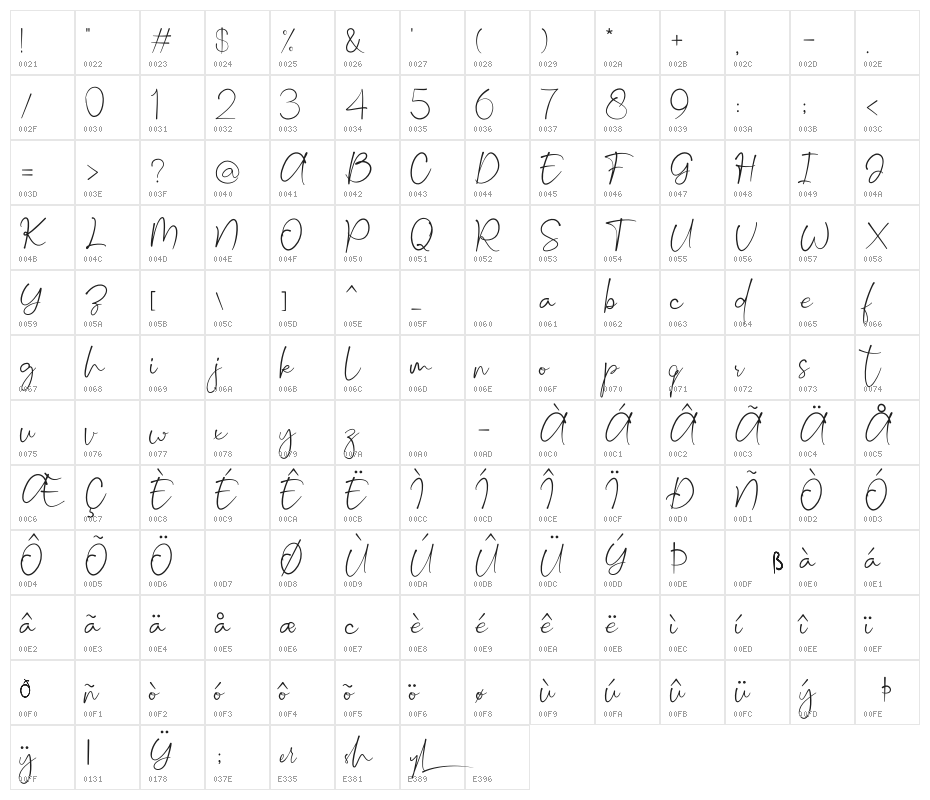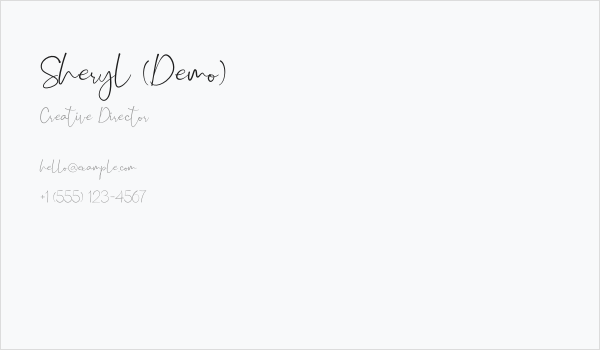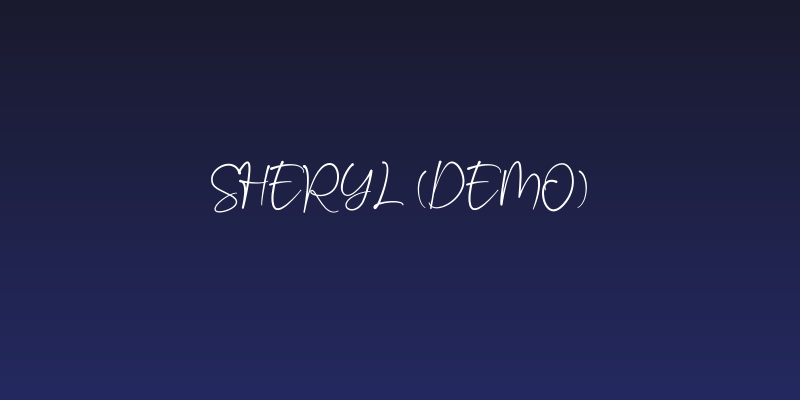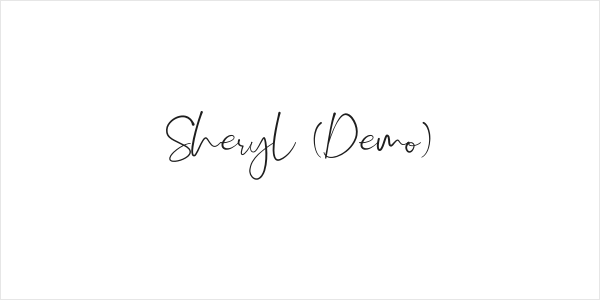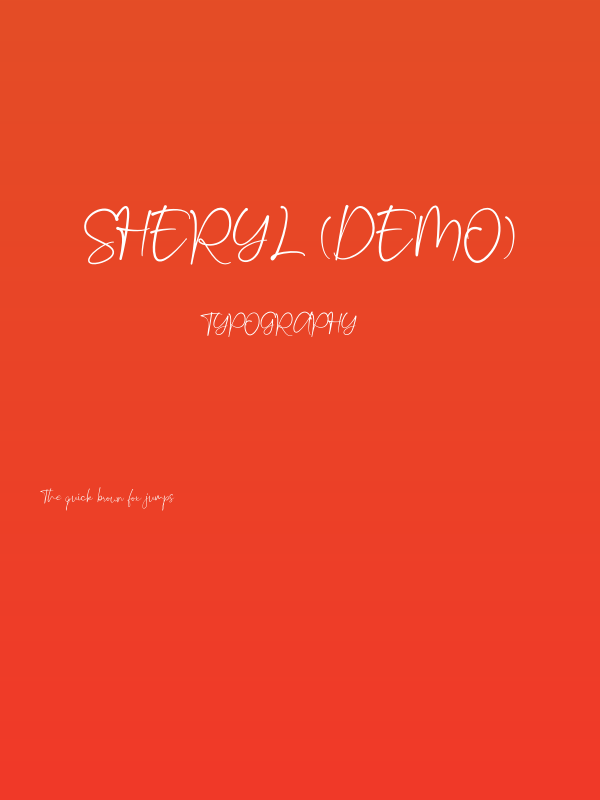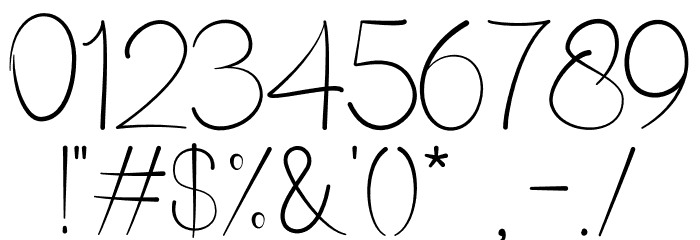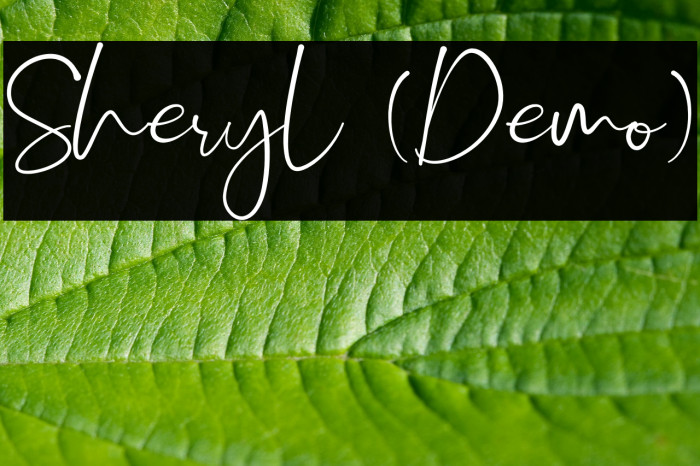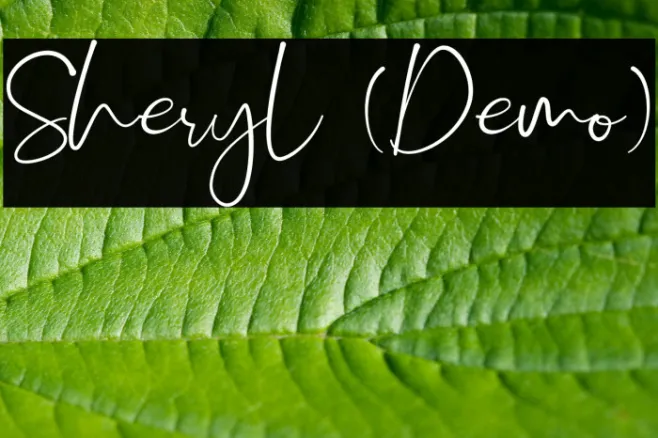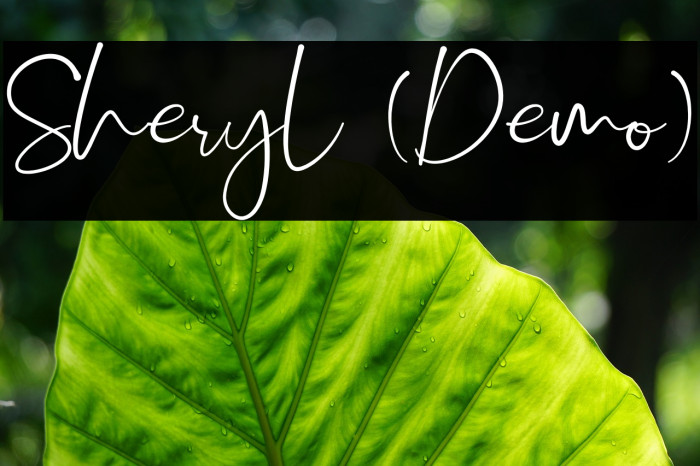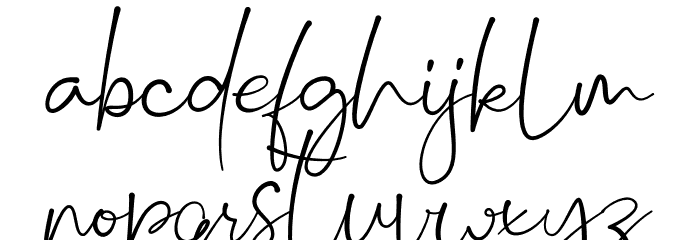
Sheryl (Demo) Font
Sheryl (Demo) Description
This font exudes a lively and dynamic energy with its handwritten style. The characters are fluid and slightly irregular, giving a personal and informal touch. The uppercase letters are tall and slender, while the lowercase letters maintain a consistent flow with elegant loops and curves. The numerals are distinctive, matching the playful yet sophisticated style of the alphabet. Special characters are creatively integrated, enhancing the font's versatility. Overall, this font captures a sense of spontaneity and creativity, making it ideal for projects that require a personal and artistic flair.
| Proposed Projects | Ideal for greeting cards, invitations, personal branding, and artistic projects. |